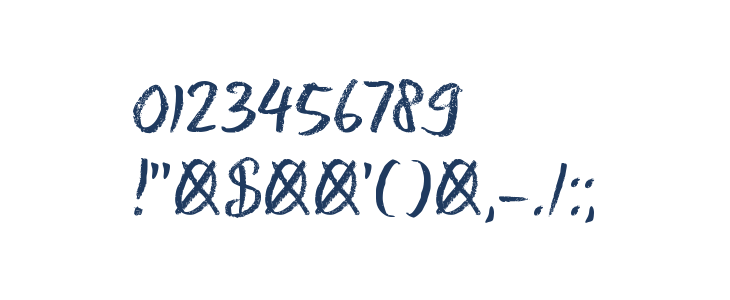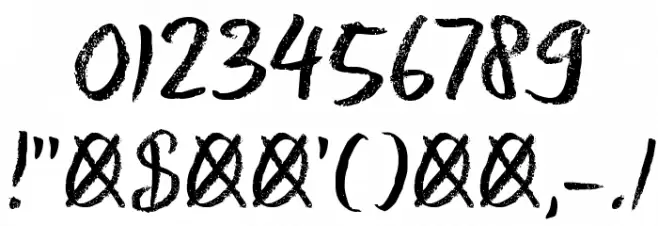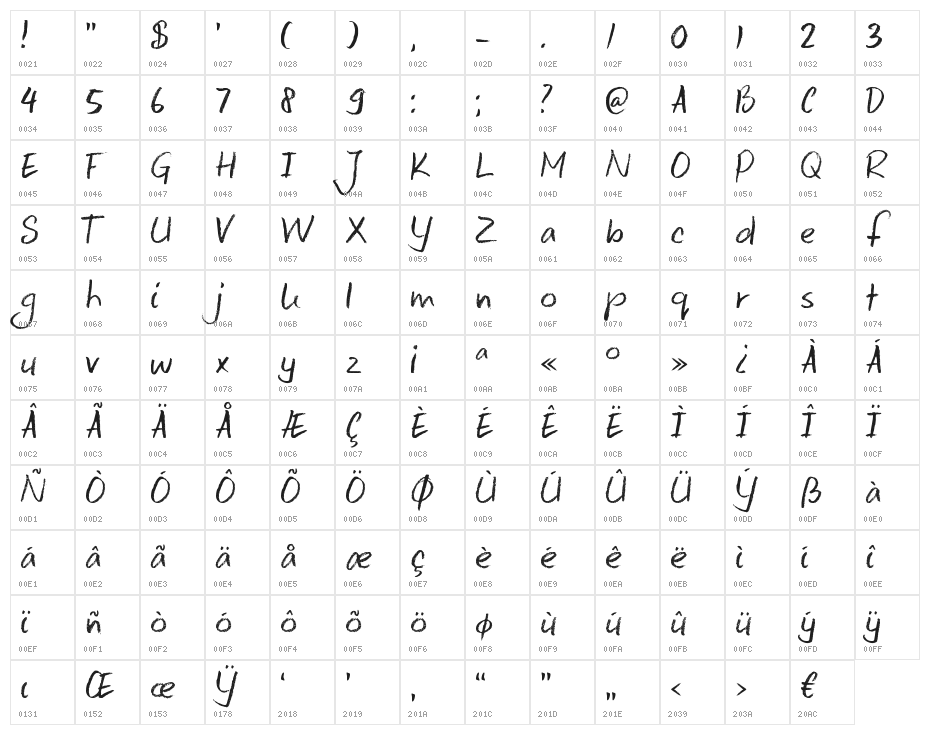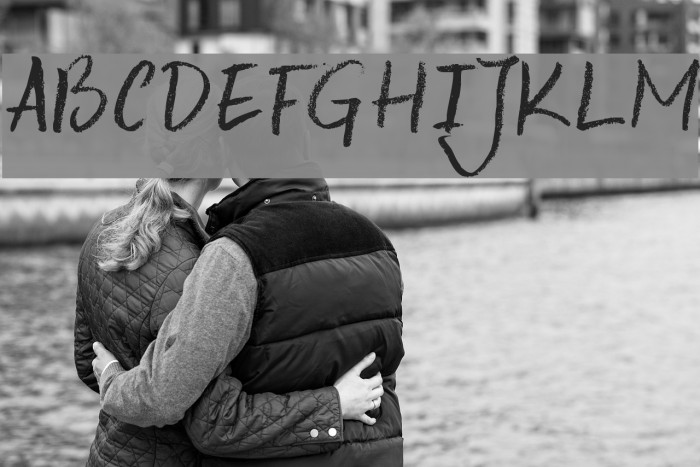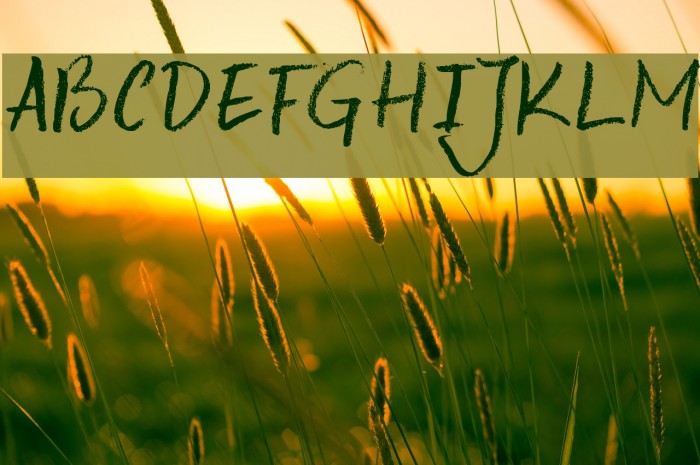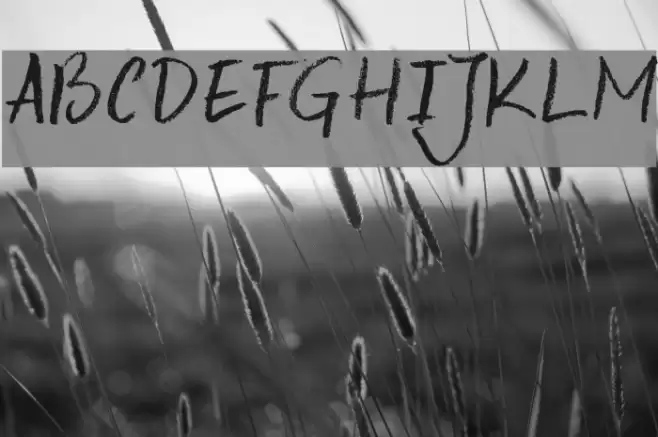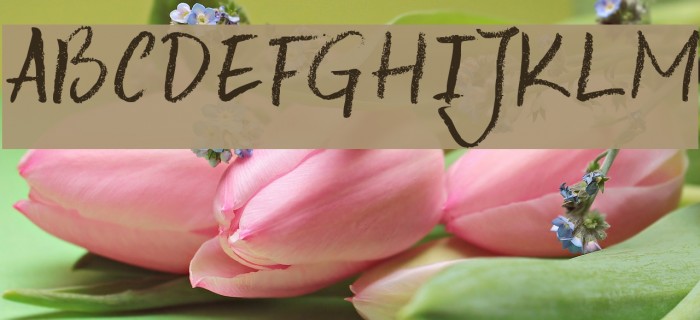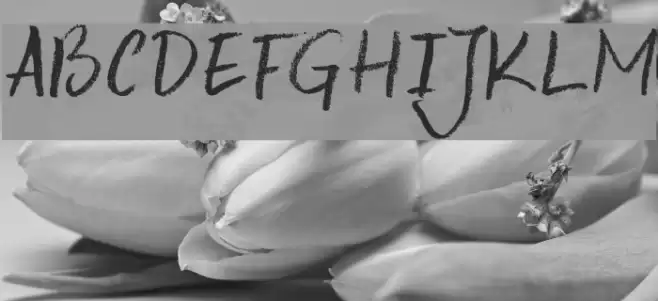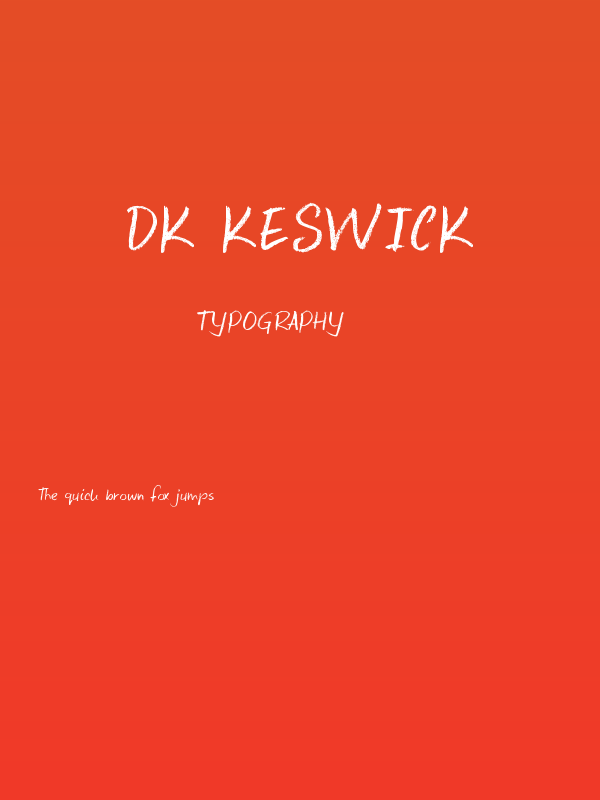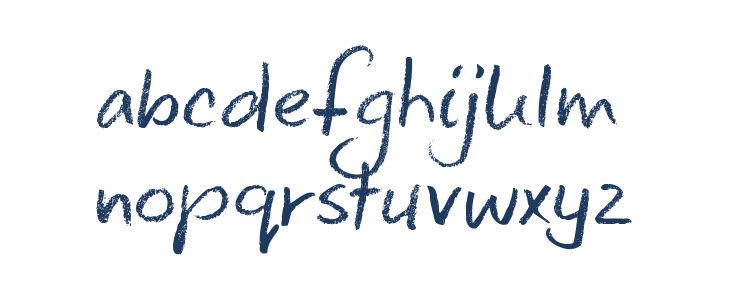
DK Keswick Font
DK Keswick Description
This font exudes a dynamic and expressive style, characterized by its brush-like strokes and organic flow. The letters are crafted with a sense of movement, giving them a lively and energetic appearance. The uppercase and lowercase characters maintain a consistent style, with slightly irregular edges that add to the hand-drawn aesthetic. The numerals and special characters follow the same design principles, ensuring a cohesive look throughout. This font's unique texture and informal style make it ideal for projects that require a personal touch or artistic flair.
| Proposed Projects | Ideal for artistic projects, personal branding, invitations, and creative posters. |